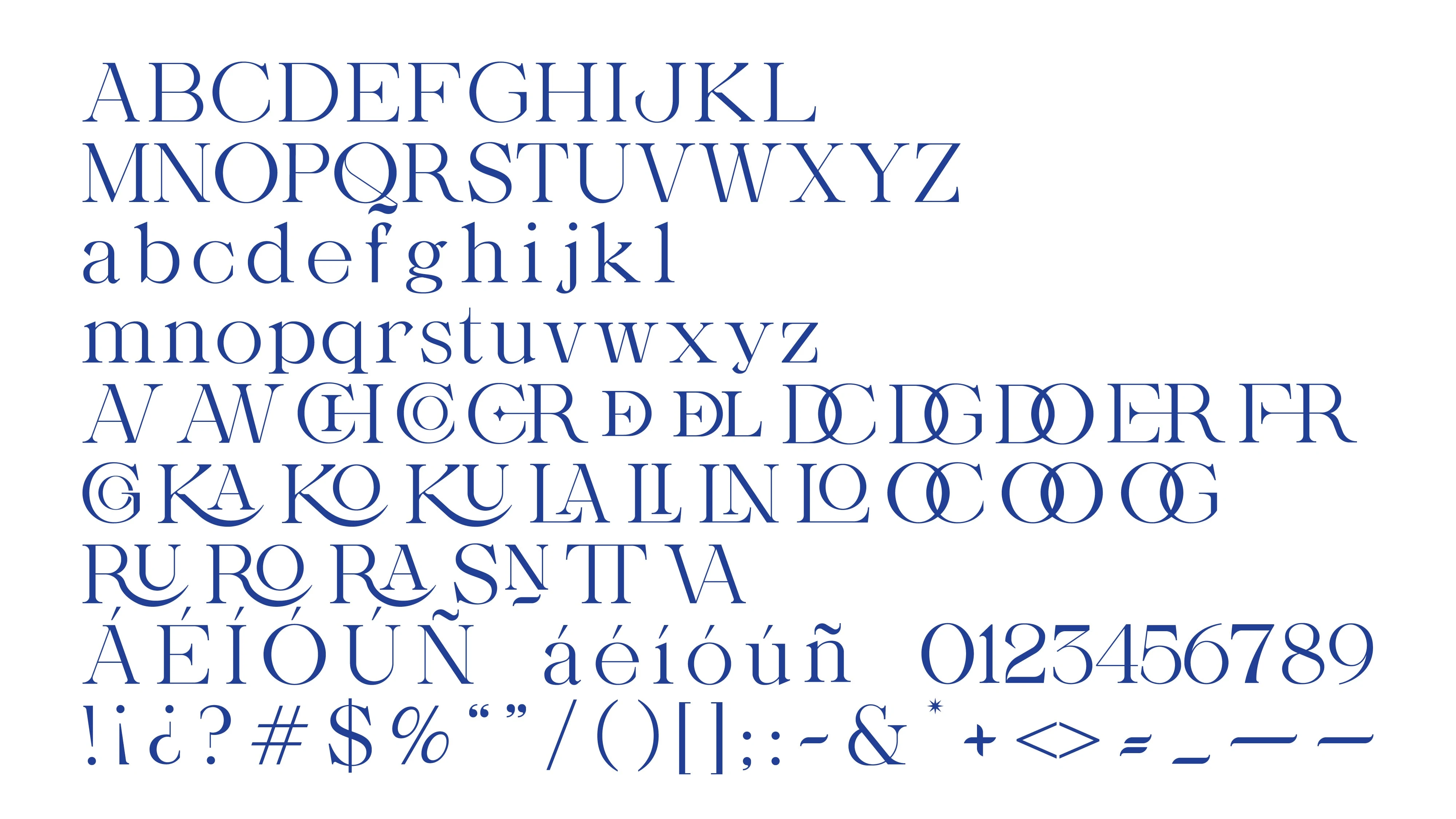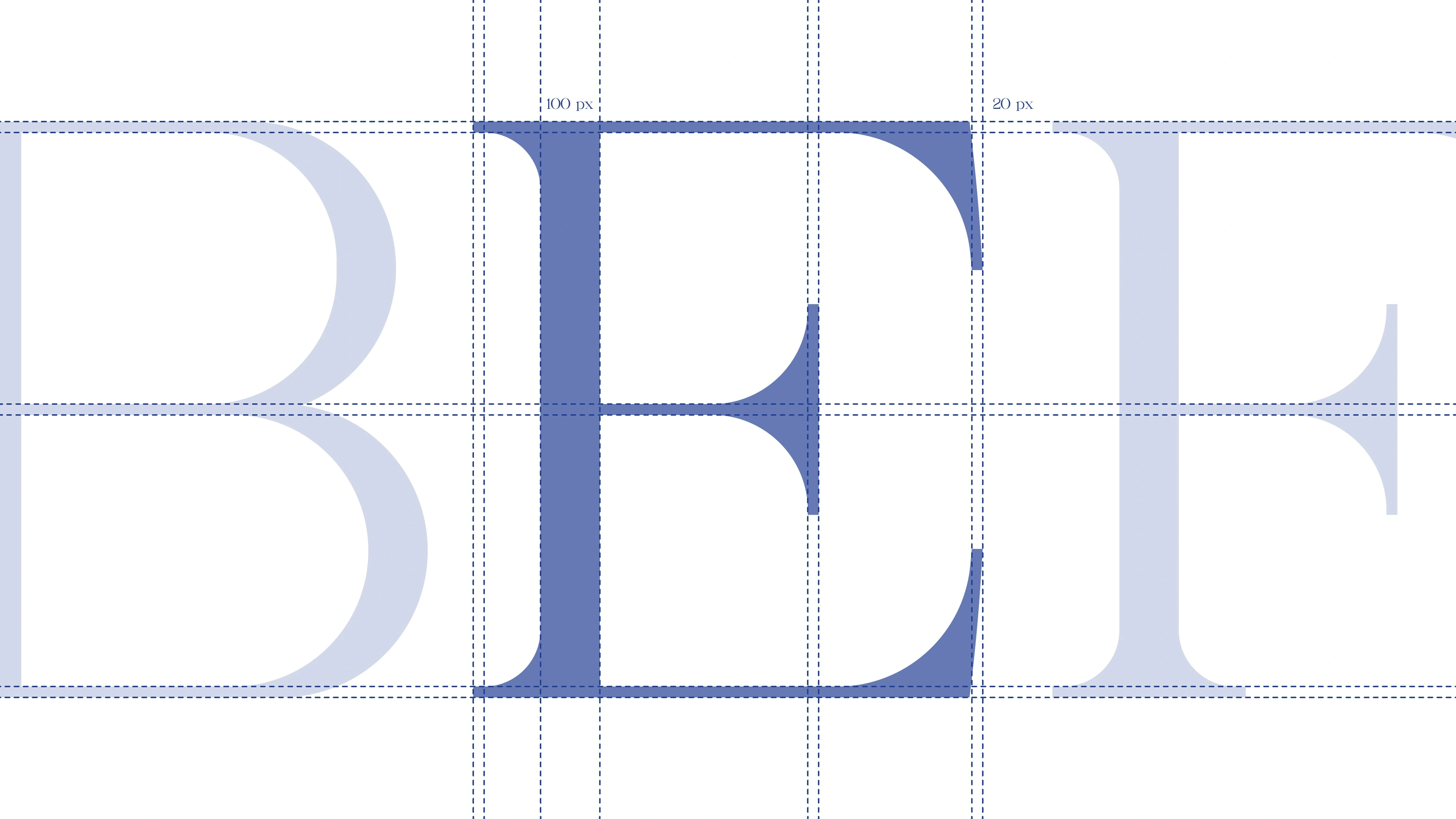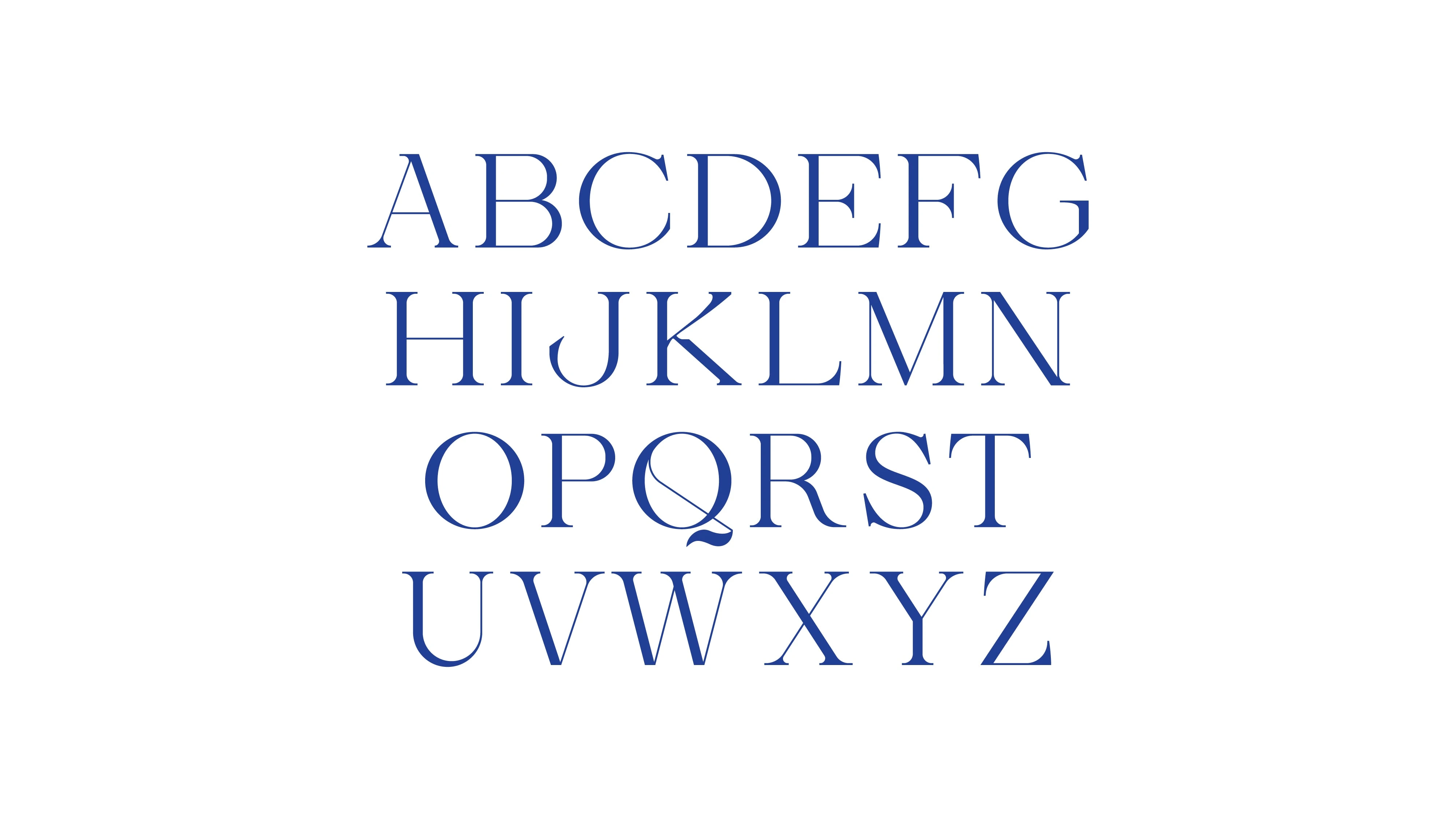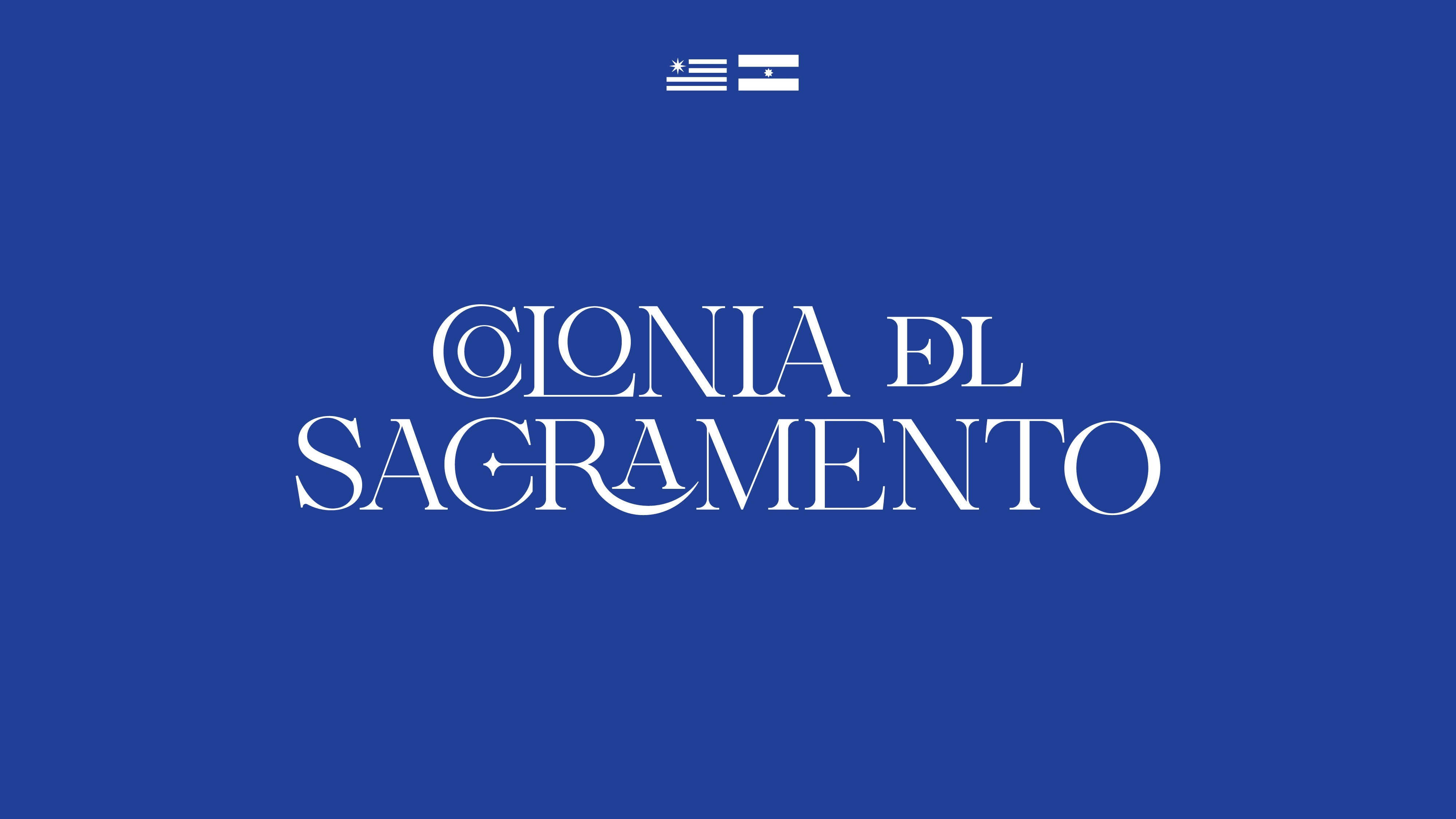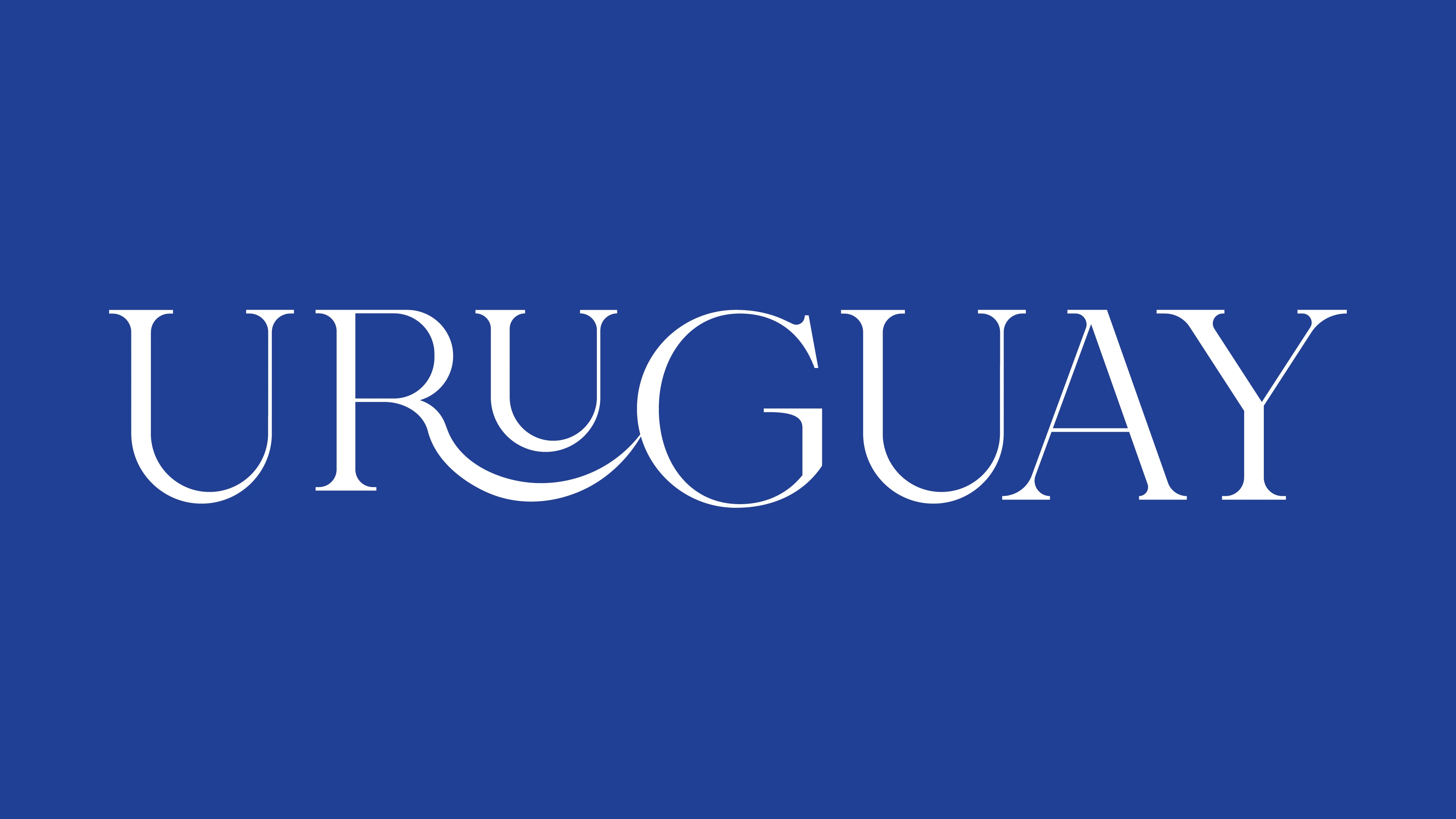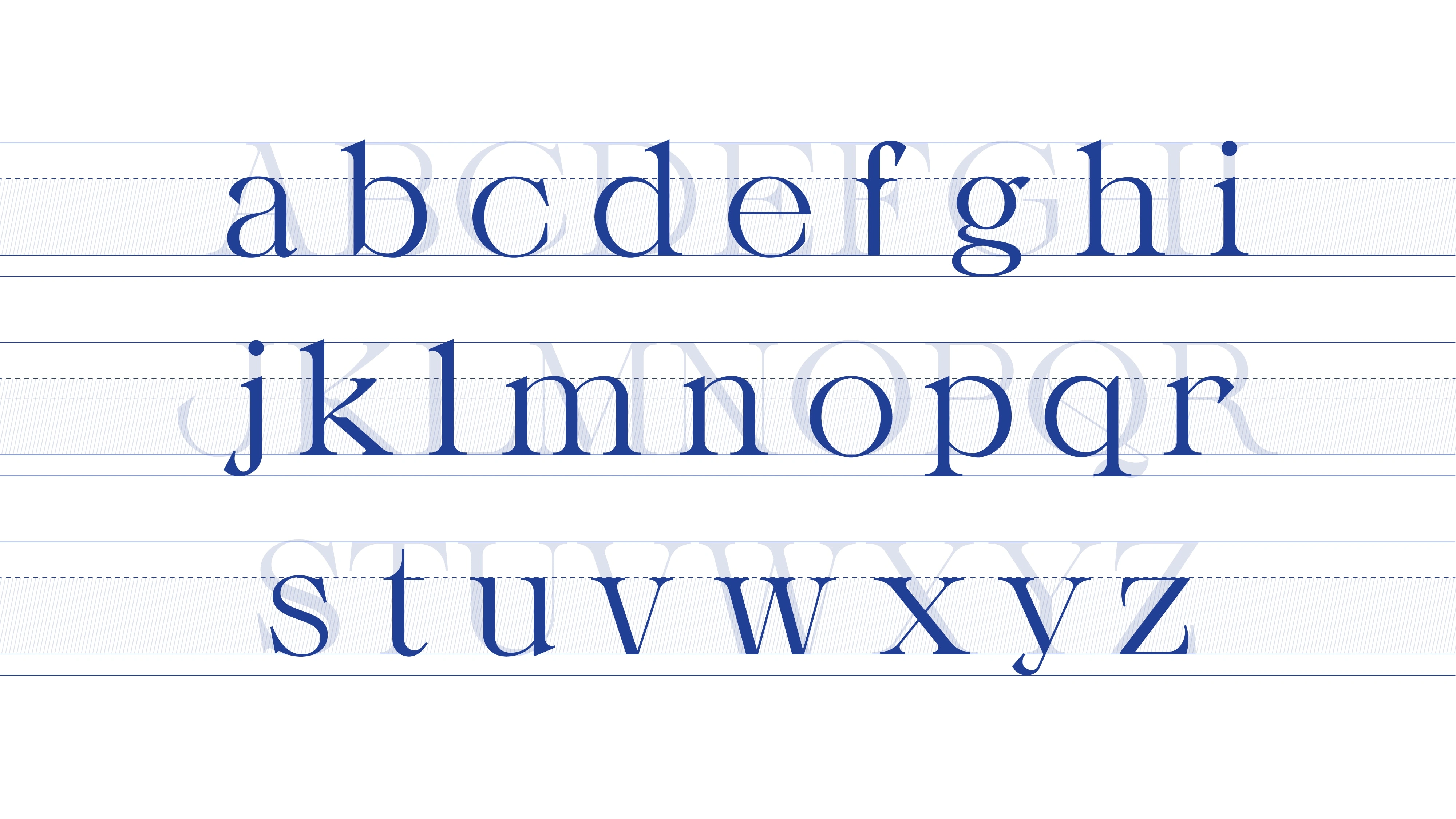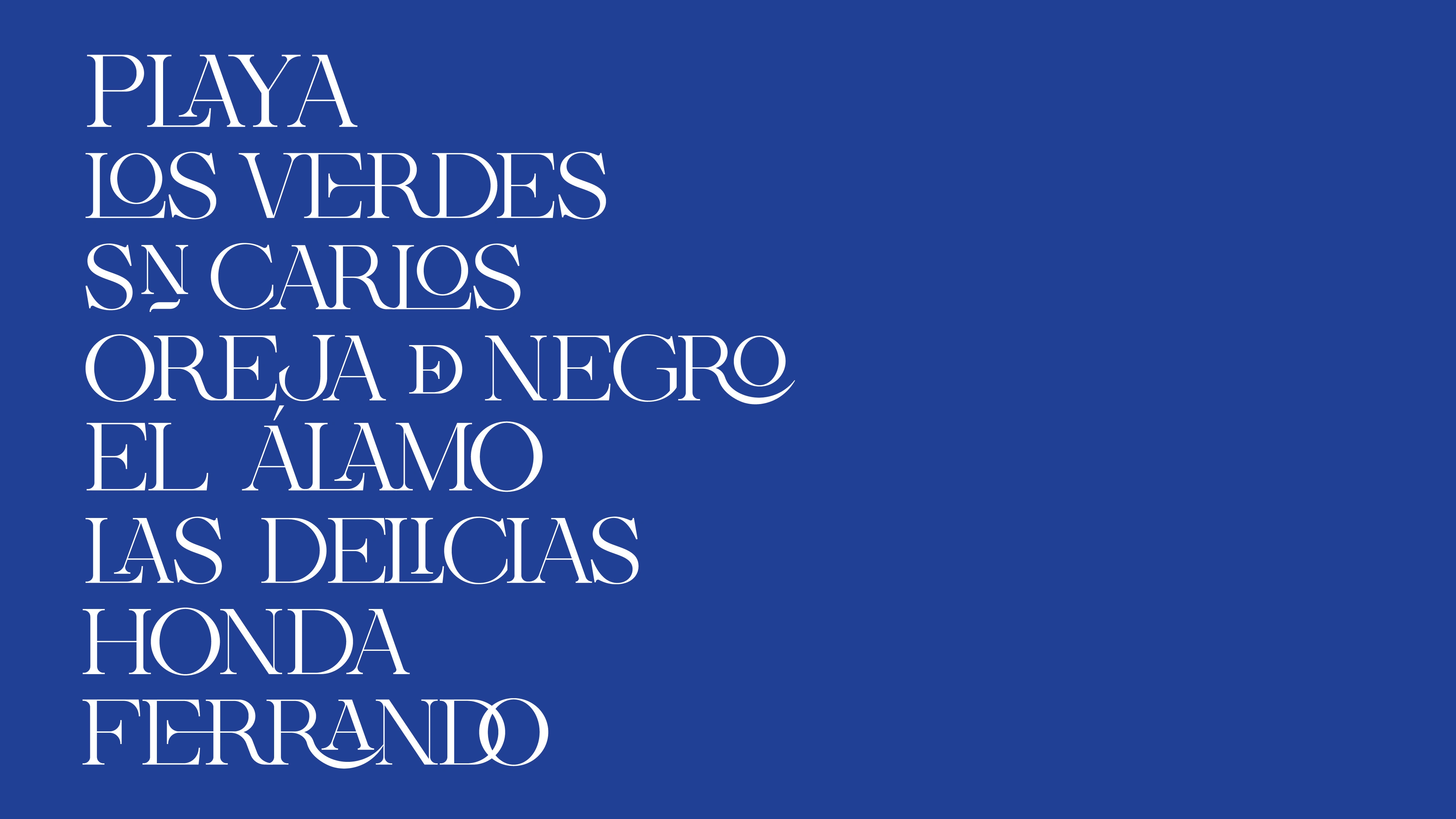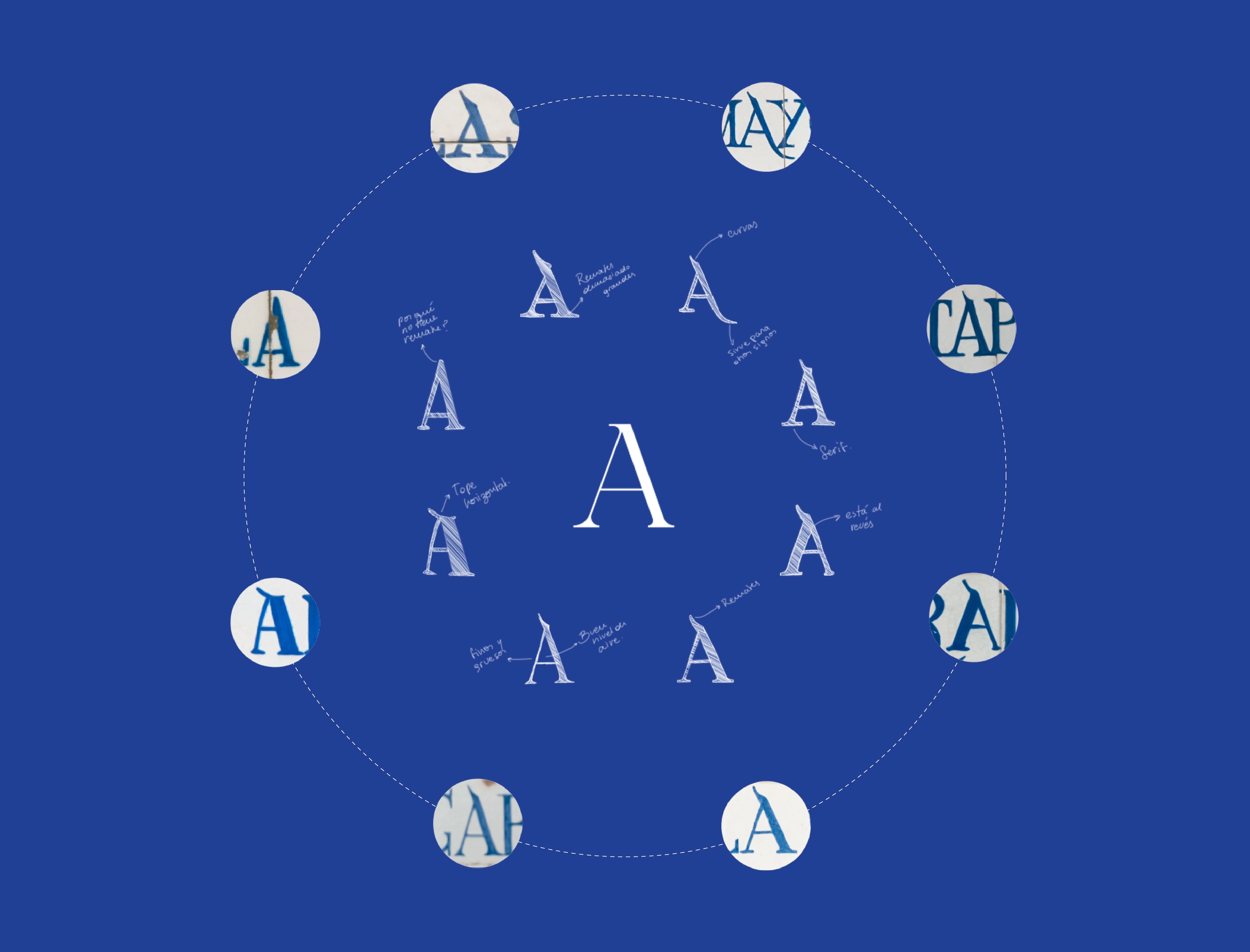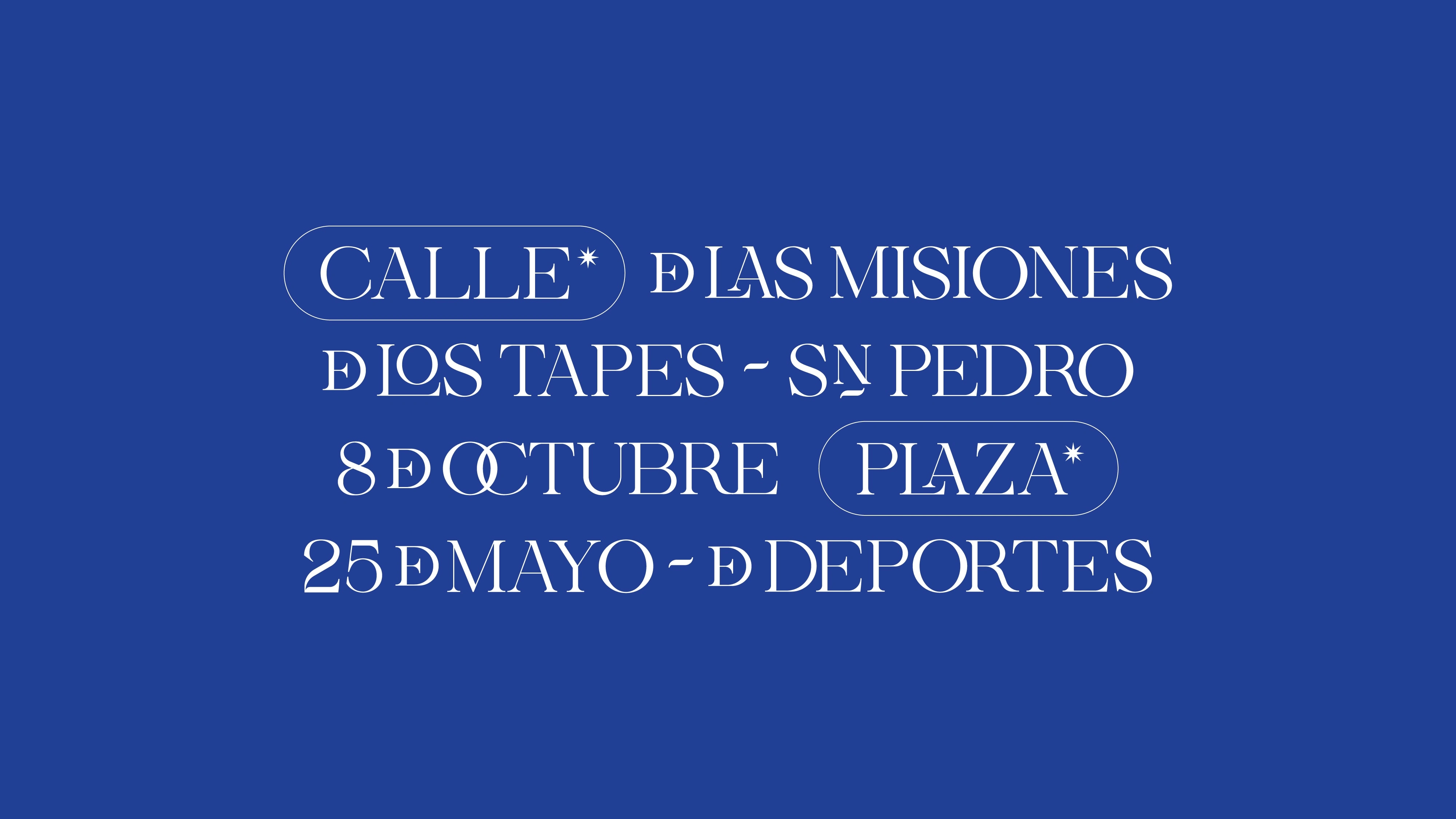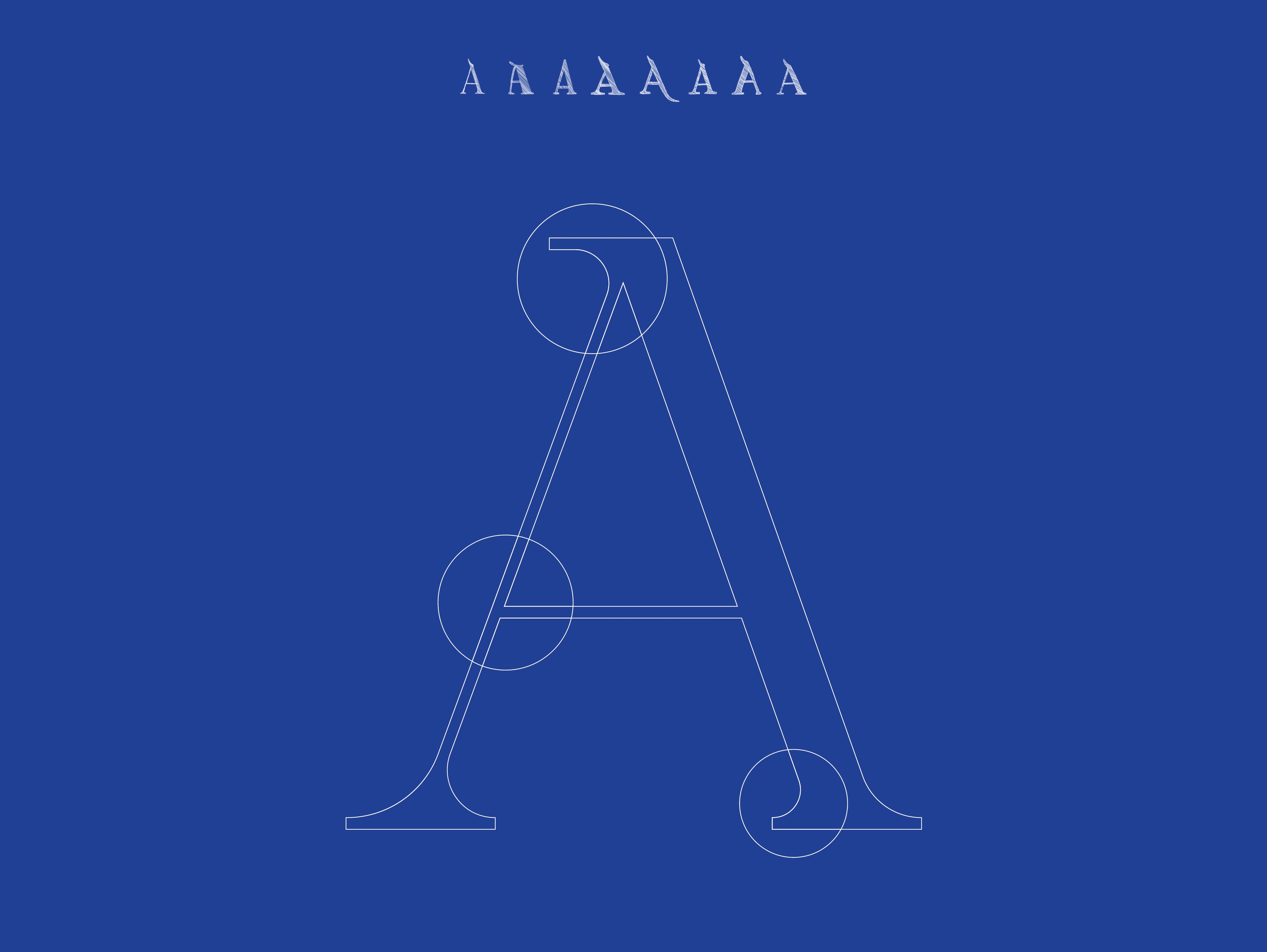
Colonia del Sacramento: Handcrafted Heritage Typeface
Colonia Typo is a typeface project rooted in the visual identity and handmade artistry found in the historical city of Colonia del Sacramento, Uruguay. The font is meticulously designed based on an extensive photographic archive of the city's iconic hand-painted street mosaics.
This project goes beyond simple tracing; it’s an effort to capture the organic, a priori inconsistent nature of the lettering system created by non-designers over decades. Colonia Typo explores the relationship between the craft of hand-lettering, colonial forms, and contemporary digital design.
By defining design parameters (such as weight, proportions, and axes) from the analysis of these varied strokes, we created a coherent digital typographic system that pays tribute to the original diversity. The result is a highly usable font that functions as a tool for identitary conservation, bridging a unique historical craft with the modern world of design.
Colonia Typo is available in two versions, Traditional and Classic, offering flexibility to incorporate the city's authentic character into any visual communication project.
Digital font inspired by Uruguay's historic street mosaics. Colonia captures the organic, handmade style for unique, character-driven design projects.